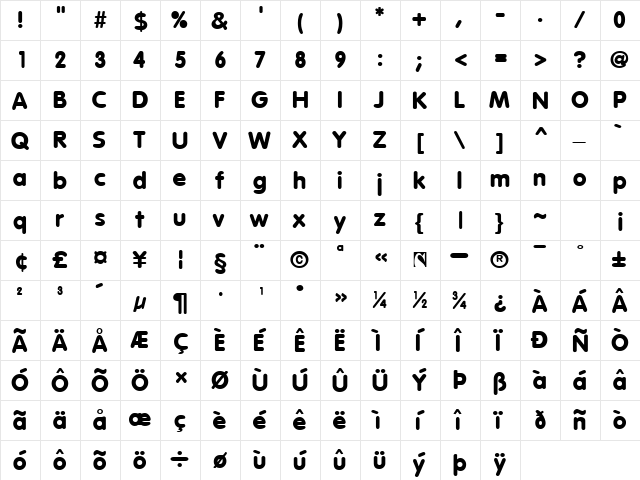
Elementary fed
Design Context for Elementary Typeface
Elementary offers clean, dependable letterforms without strong stylistic allegiance, making it a practical choice for designers who need flexibility.
Pro Tip: Pair Elementary with a font of contrasting weight or personality to build a more expressive typographic hierarchy.